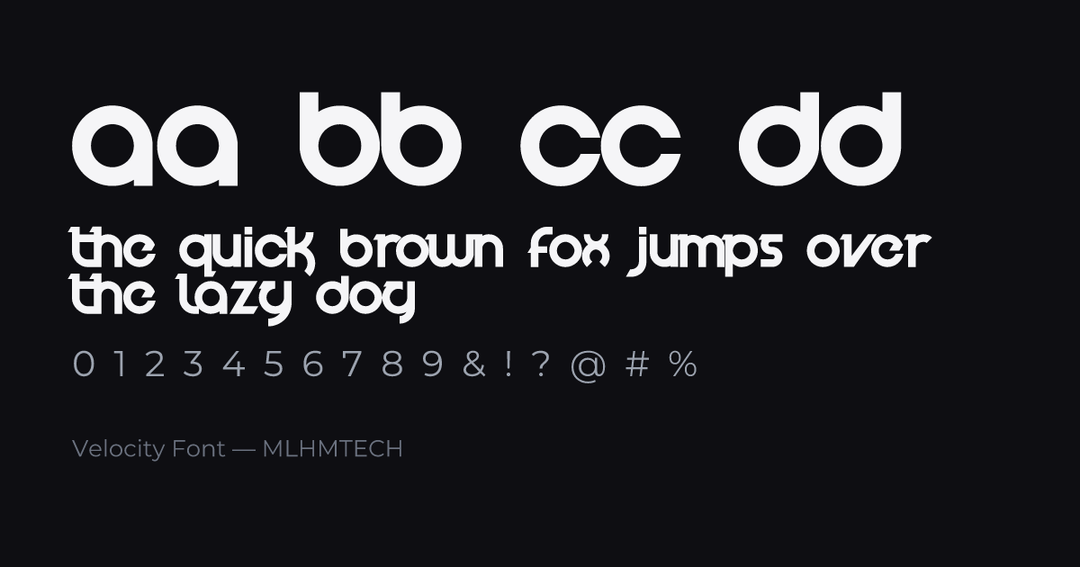
Velocity Font
Velocity Font is a modern sans-serif display typeface with a dynamic, speed-inspired look. Ideal for bold headlines, logos, and video titles.
Velocity Font is a versatile sans-serif typeface that exudes speed and modernity. Its clean lines and slightly condensed letterforms make it perfect for capturing attention in headlines, promotional materials, and digital content.
Designed for high impact, Velocity Font works exceptionally well in large sizes, such as poster titles, video thumbnails, and branding elements. Its geometric structure ensures legibility even at smaller sizes, making it a reliable choice for body text in short bursts.
Whether you're a video editor looking for a dynamic title font or a graphic designer seeking a fresh display typeface, Velocity Font adds a professional edge to your work. Its unique character set includes multiple weights and styles, offering flexibility for various design needs.